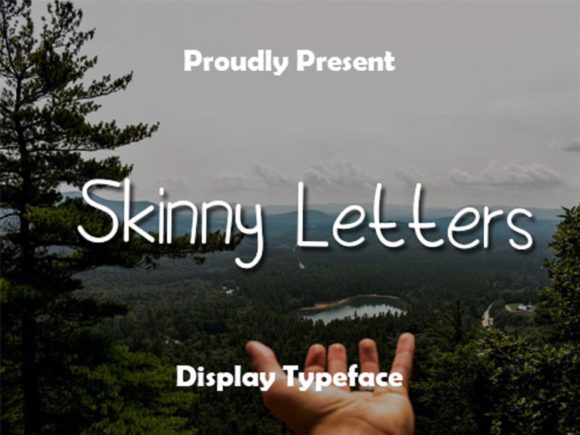
Journey into a world of whimsical charm and playful elegance with our Skinny Letters font, an extraordinary creation of scriptstrategy. This captivating script font possesses an enchanting personality, seamlessly blending the innocence of handwritten notes with the sophistication of timeless calligraphy.
With its graceful strokes and endearing curves, Skinny Letters effortlessly captures the magic of childhood memories, evoking nostalgic sentiments of playful scribbles and heartwarming letters. Its delicate and airy structure lends a touch of whimsy to any design, inviting you to embrace the beauty of simplicity and embrace your creative flair.
As a member of the script font family, Skinny Letters exudes a timeless quality, reminiscent of classic love stories and elegant invitations. It effortlessly adds a touch of romance and sophistication to wedding stationery, personal branding, and heartfelt messages. Its versatility knows no bounds, extending to logos, posters, social media graphics, and any project craving a dash of lighthearted charm.
Dive into the limitless possibilities that await with Skinny Letters. Its friendly and approachable nature makes it the perfect choice for children's books, playful illustrations, and whimsical branding. Unleash your imagination and create captivating designs that resonate with audiences of all ages, leaving them utterly charmed and delighted.
Embrace the allure of Skinny Letters and unlock a world of creative enchantment. Let your designs radiate joy, warmth, and a touch of lighthearted magic. Let Skinny Letters be your artistic muse, inspiring you to create designs that capture hearts, spark smiles, and leave a lasting impression.